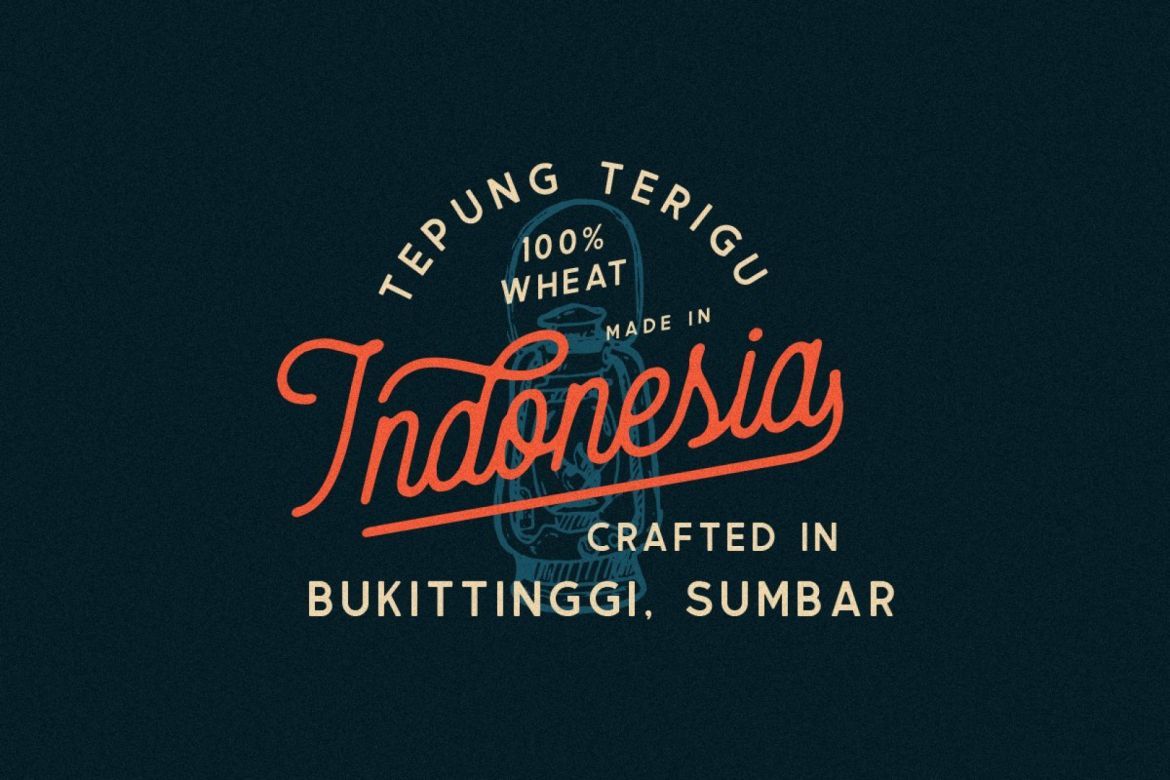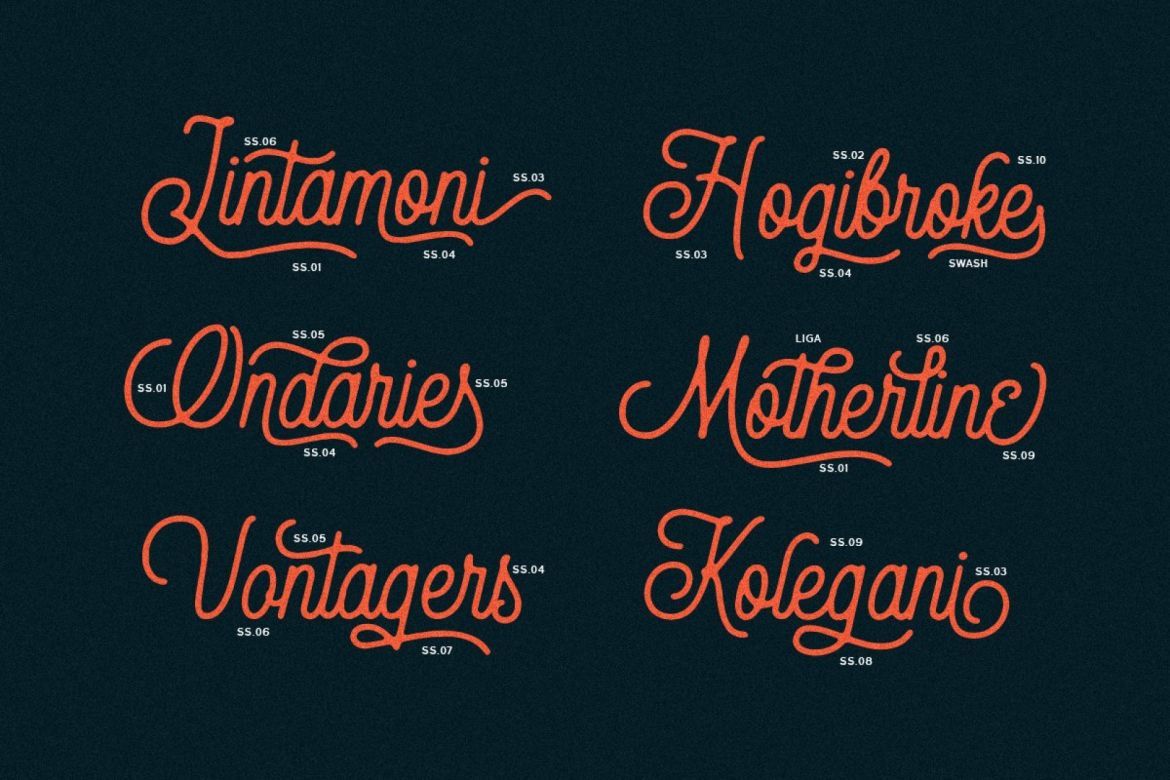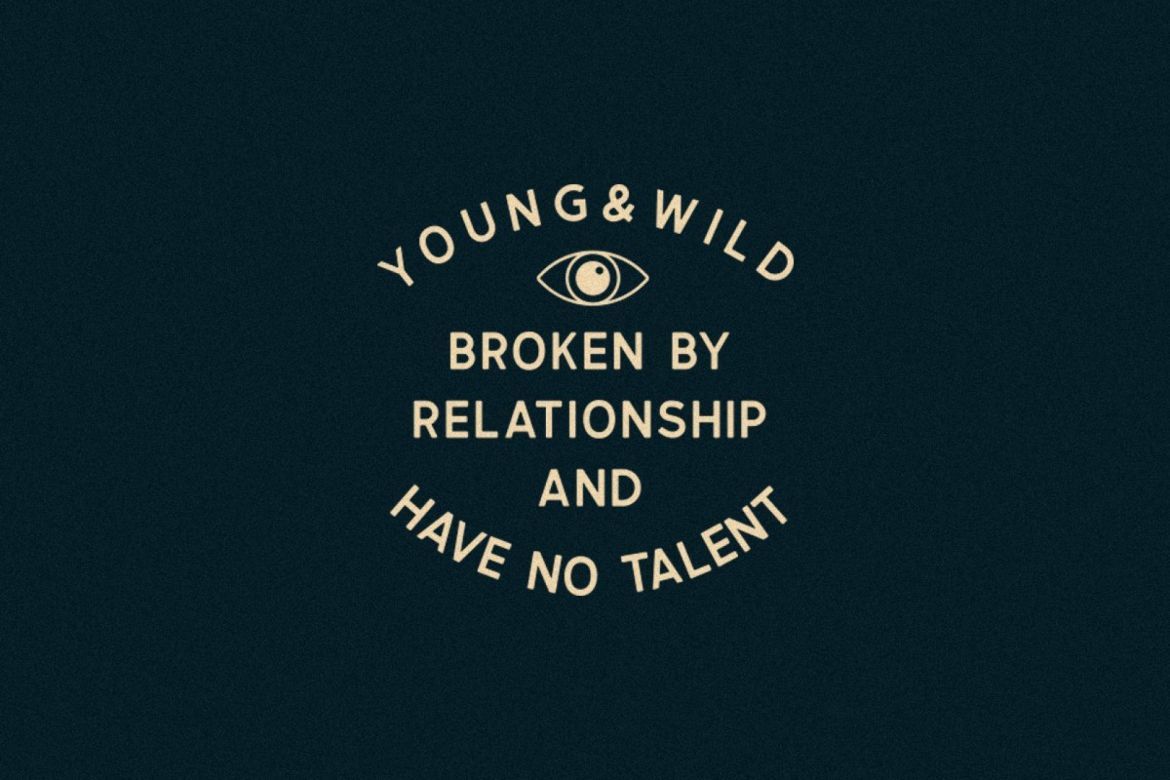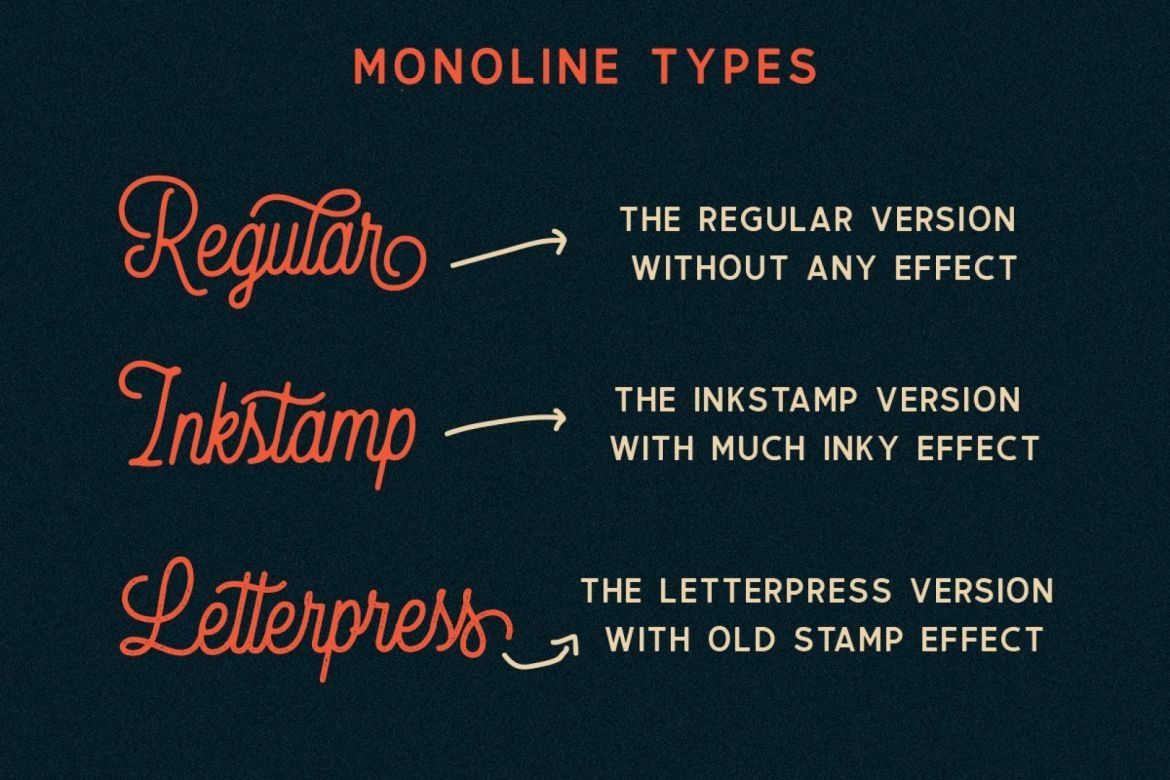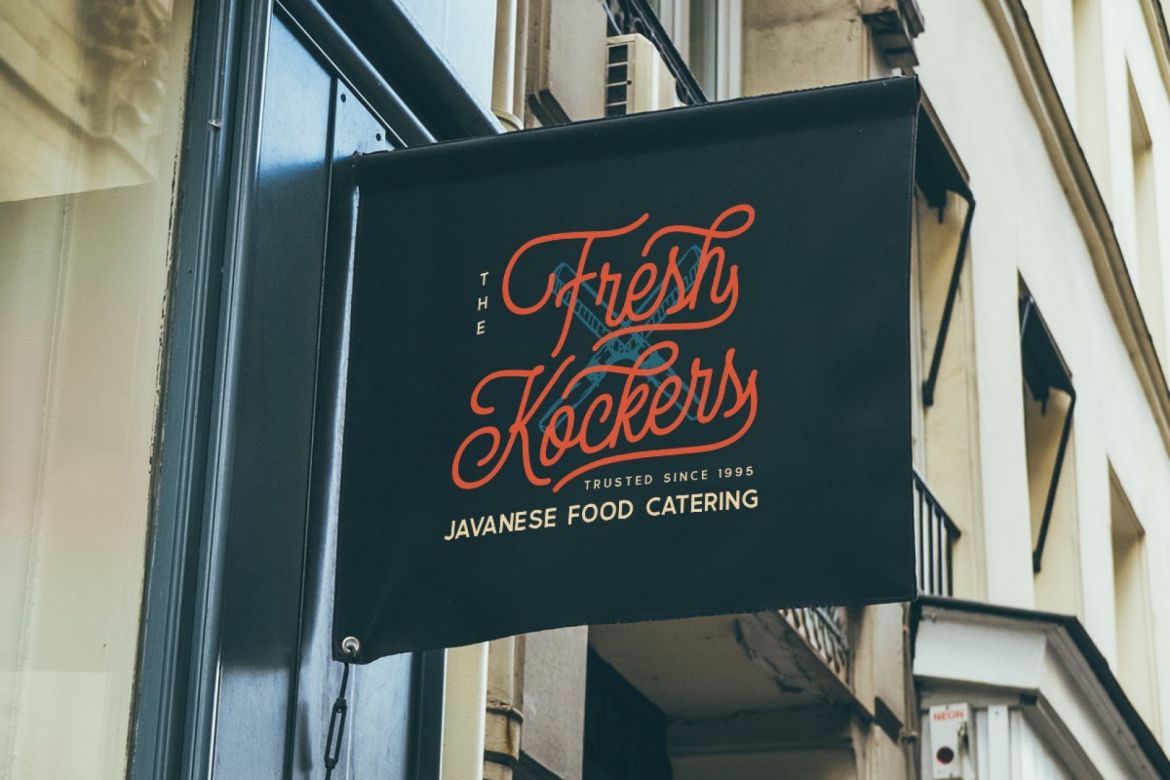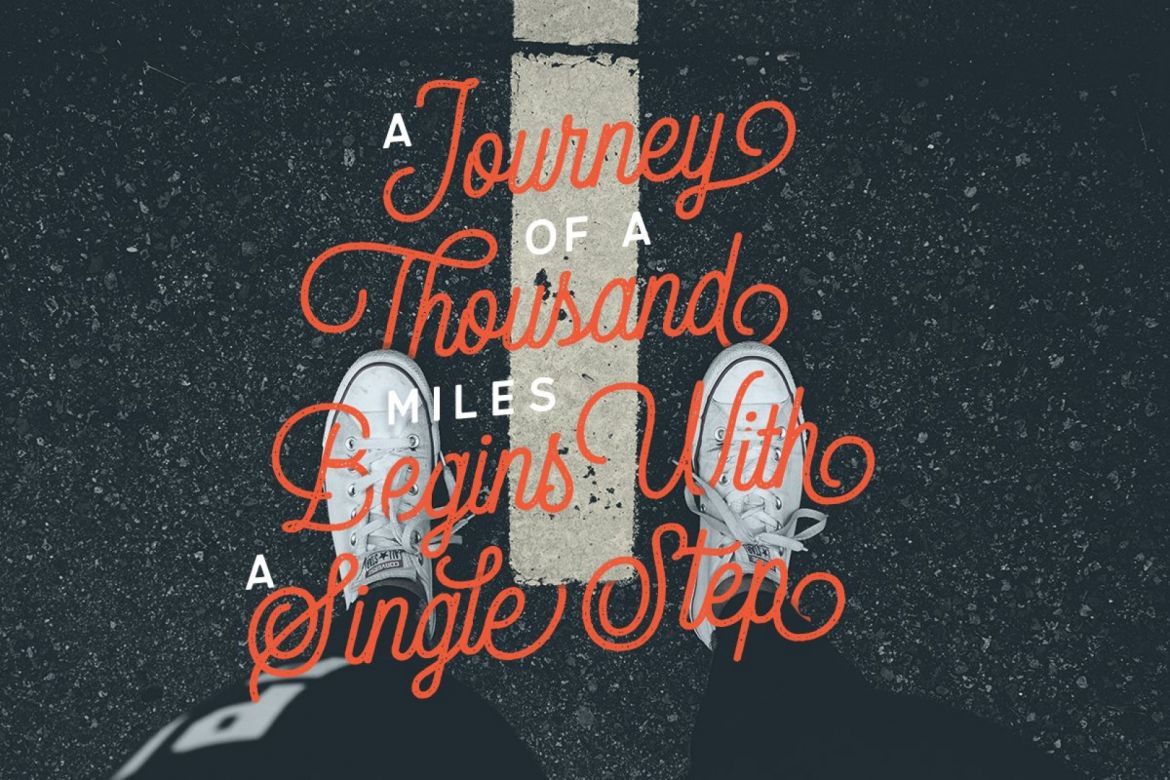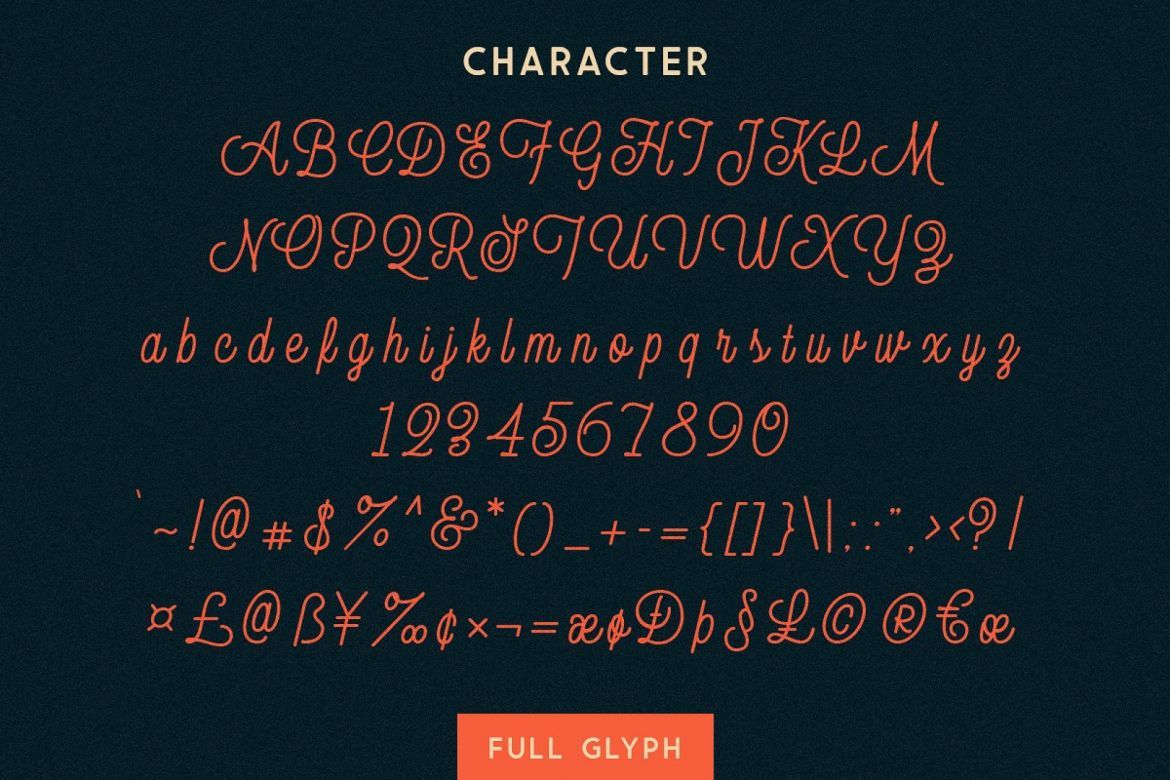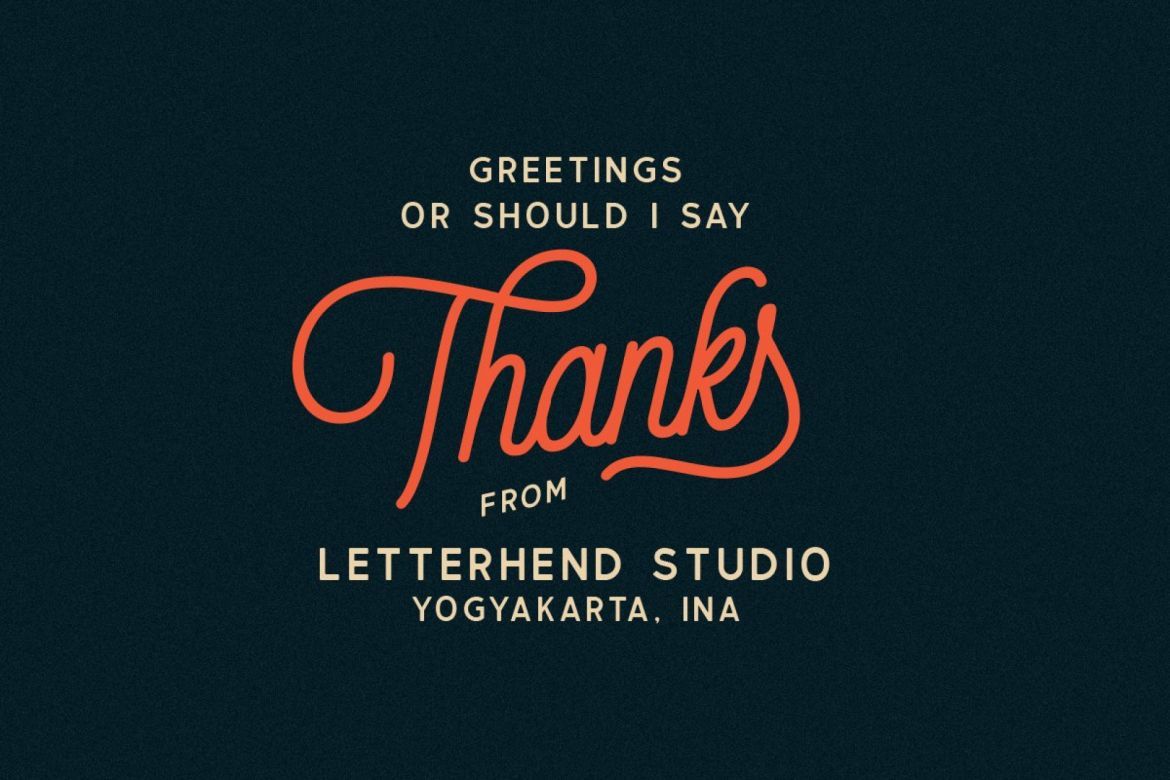
Thirdlone Font Duo & Vector Pack
• supports multilingual
• this font is very suitable for use as a t-shirt design, logo / brand, signature, headline, letter quotation, etc.